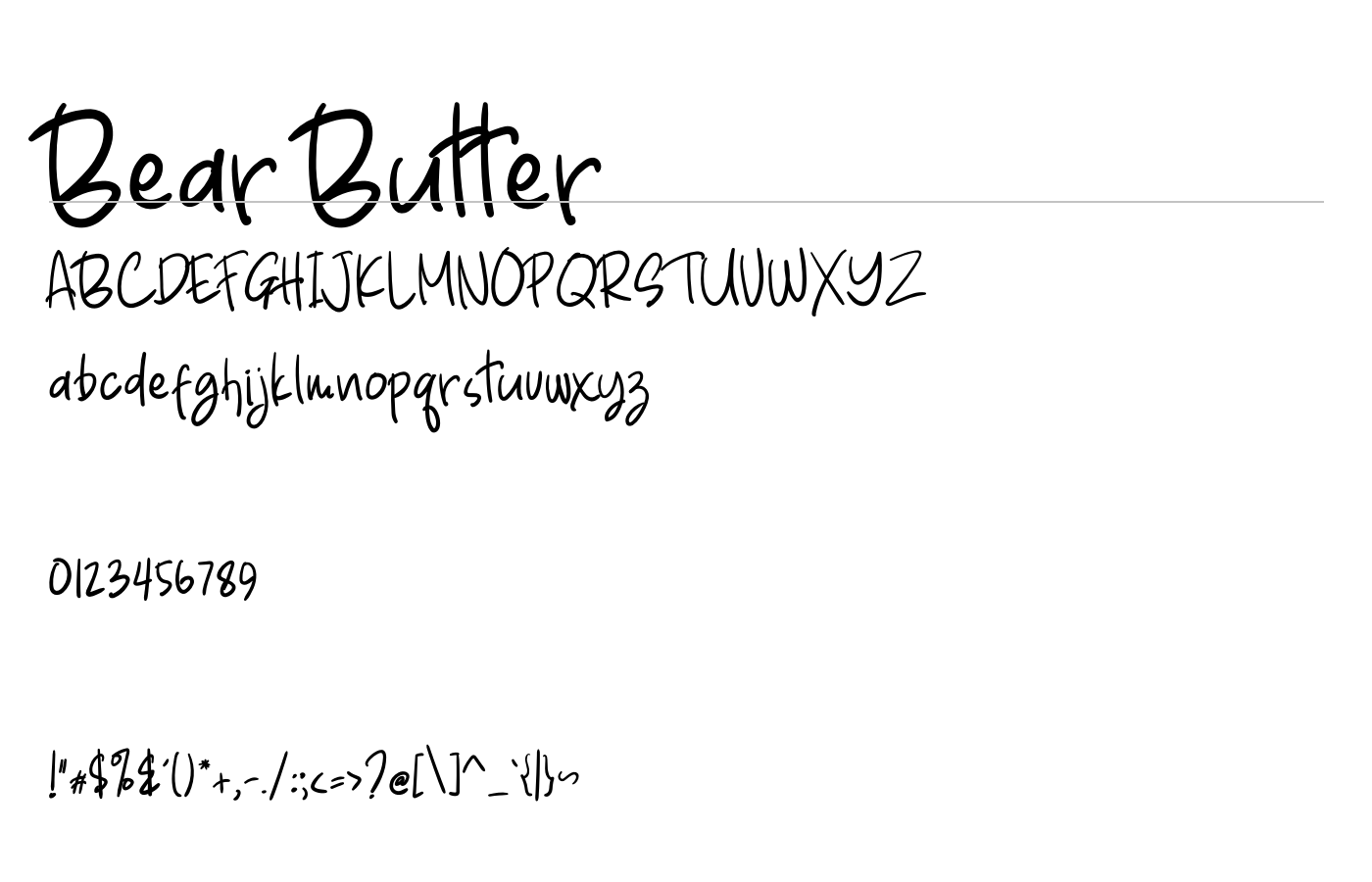
Bear Butter is a playful and casual handwritten font featuring tall, slender letterforms with a lively, slightly irregular stroke. Its light weight and natural, informal style make it perfect for fun, approachable branding, children's books, and creative projects seeking a friendly and personal touch. This font’s charm lies in its organic feel, making it ideal for designs that want to convey warmth and spontaneity.
Bear Butter Font
About Bear Butter Font
| Font family | Bear Butter Font |
| Designer | Abdul Azis |